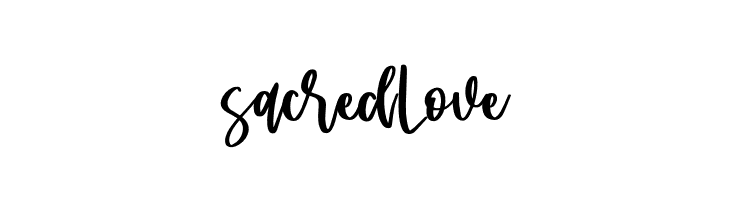
A bold, condensed font with tall, narrow letterforms and a modern aesthetic.
A lively, expressive handwritten font with fluid strokes and playful curves.
A bold, expressive script font with a lively, handwritten style.
A bold, distressed font with a textured, vintage appearance.
A bold, playful font with quirky, artistic character designs.
An artistic serif font with decorative, vine-like embellishments.
A bold, slightly condensed font with a modern vintage style.
A bold, playful font with rounded edges and a whimsical style.
A distressed, chaotic font with jagged, uneven strokes for an edgy look.
A bold, vintage-style font with playful curves and strong presence.